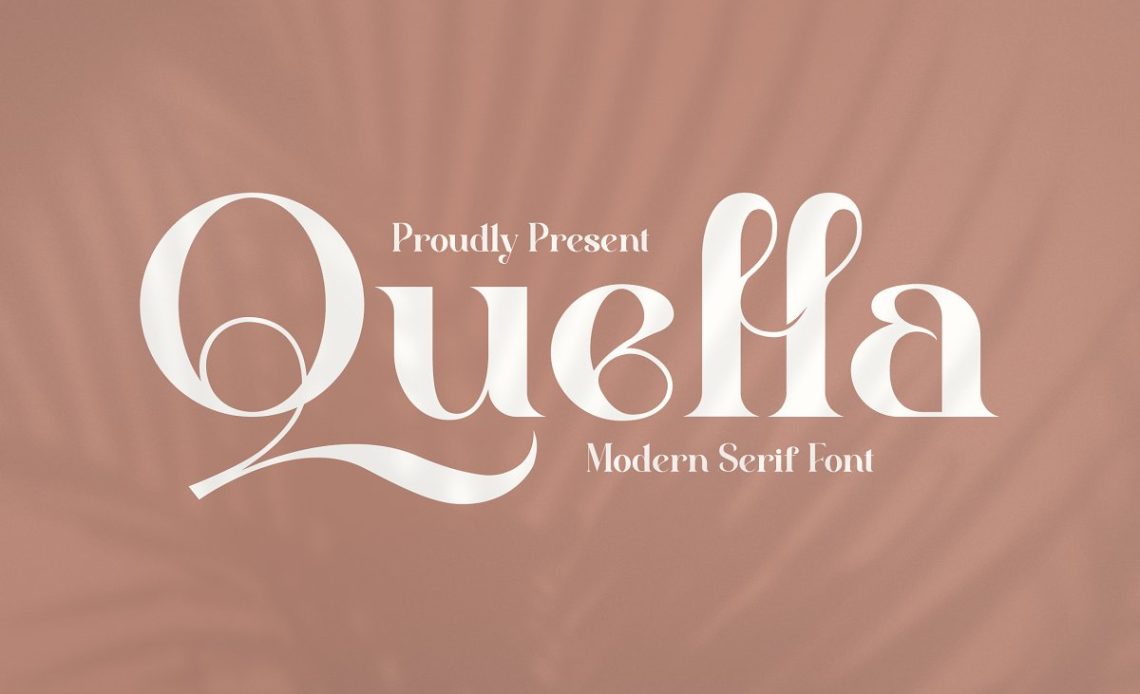
Introducing Quella Modern Serif Font, the ultimate choice for your website header! Created by the talented Rena Marliana and featured in the Mega Bundle from Storytype Studio, this font is a game-changer for anyone looking to make a bold statement.
Quella Typeface is a masterpiece in the world of typography, blending modern and classic elements seamlessly. Its unique style and modern look instantly captivate the viewer, leaving a lasting impression. Whether you're designing an elegant and luxurious logo, a book or movie title, or even a fashion brand, this font is your perfect companion.
With over 100 modern and minimalist serif fonts in the bundle, you'll never run out of options. Each font is carefully crafted to ensure maximum versatility and visual appeal. The Quella Typeface stands out from the crowd, guaranteeing that your designs will be eye-catching and unforgettable.
Not only does Quella Typeface excel in aesthetics, but it also boasts a wide range of features that make it a dream to work with. From uppercase and lowercase letters to numerals, punctuations, and accents, this font has everything you need to bring your creative vision to life. Additionally, the ligatures and alternative style stylistic set add a touch of elegance and sophistication to your designs.
But Quella Typeface is not just about functionality; it's about evoking emotions and creating a connection with your audience. Its sleek and modern design exudes confidence and sophistication, making it perfect for brands that want to leave a lasting impression. Whether you're designing for a magazine, clothing line, or even inspirational quotes, this font will elevate your creations to new heights.